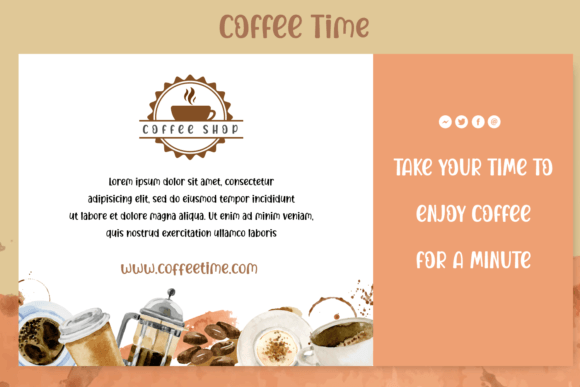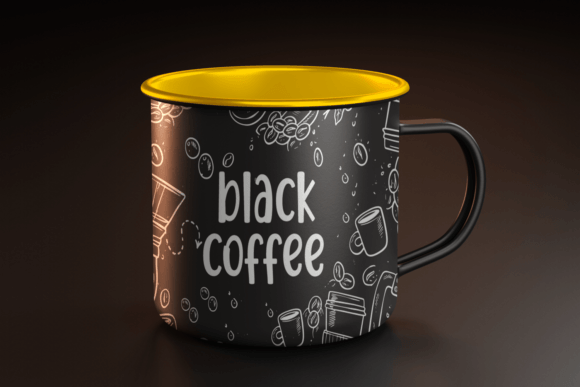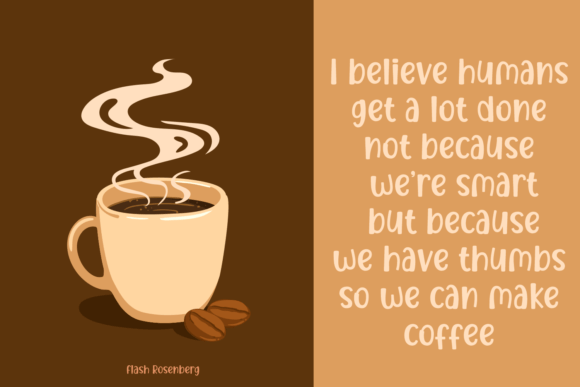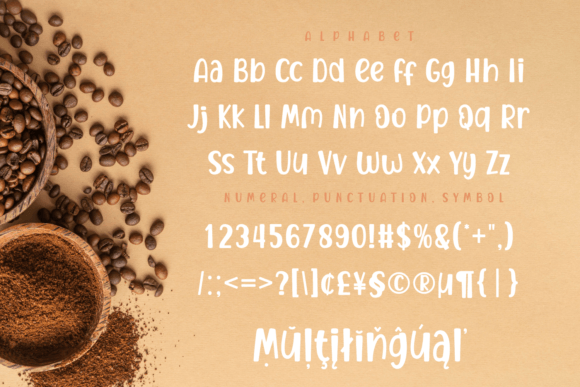
Discover the Delight of Apple Latte Font
You know that moment when you’re brainstorming ideas for a new project, and suddenly, everything clicks into place? The words flow, the design takes shape, and you can’t wait to bring your vision to life. For designers, finding the perfect font can be the missing piece that elevates a project from good to great.
That’s where the Apple Latte Font comes in – a beautiful, handwritten typeface that’s as cute as it is versatile. With its friendly and approachable feel, this font is an excellent addition to any design library. Whether you’re working on a branding project, creating social media graphics, or designing a wedding invitation, the Apple Latte Font has the potential to add a personal touch that sets your work apart.
Apple Latte Font Key Features
- Font Family: Apple Latte Font is a sans-serif font family designed by Apple.
- Unique Characteristics: Apple Latte Font is known for its friendly, approachable feel and is often used in digital products and interfaces.
Review of Apple Latte Font
I recently had the chance to work with the Apple Latte Font, and here’s my honest take on it. ✨
- The font’s modern and sleek design makes it perfect for contemporary branding and web design projects.
- The Latin character set is comprehensive, covering most languages, including English, Spanish, French, and many others.
- The font is highly legible, even at small font sizes, making it ideal for mobile and web applications.
- ⚠️ The font doesn’t include Cyrillic or Chinese character sets, which may limit its use in certain regions or industries.
- ⚠️ The font’s italic and bold styles could be more polished, with some characters looking a bit rough around the edges.
Overall, I think Apple Latte Font is a solid choice for modern design projects, but its limitations mean it may not be suitable for all use cases. With a bit more development, this font could become a real standout in the design community.
The Apple Latte Font is commonly used for:
- Wedding invitations and decor
- Gift tags and wrapping paper
What is Apple Latte Font?
Apple Latte Font is a sans-serif typeface designed by Apple, featuring a unique blend of rounded and geometric shapes. It is optimized for digital use and is available for free download from Apple’s website.
Project 2: Coffee Shop Menu Board
Design a visually appealing menu board for a coffee shop that showcases the Apple Latte Font’s playful and modern style.
Project 3: Food Blog Social Media Graphics
Design eye-catching social media graphics for a food blog that features Apple Latte Font’s playful and cursive style.